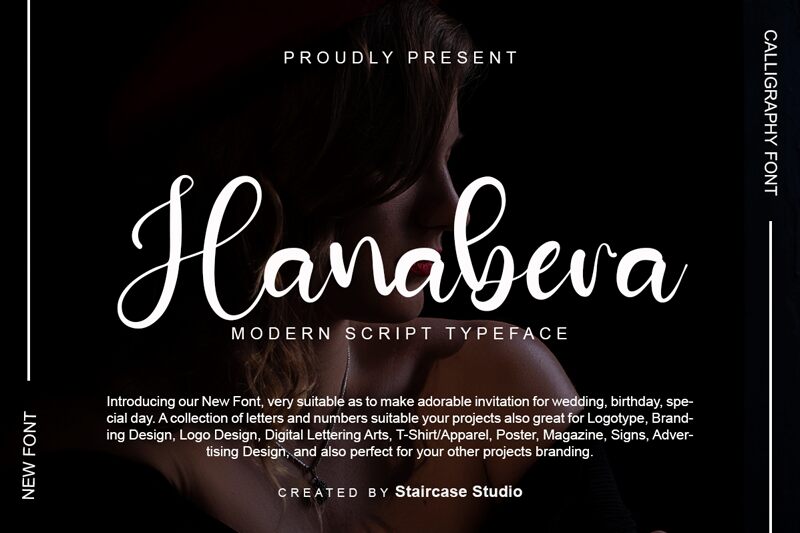
Hanabera
Meet Hanabera, the modern script font designed by Staircase Studio. With its flowing and organic lines, Hanabera brings an elegant and sophisticated touch to any project. This versatile typeface is perfect for wedding invitations, branding materials, social media graphics, packaging design, and more. Its playful yet refined style is sure to capture attention and add a touch of class to any project. Hanabera's unique letterforms make it easy to read while still standing out from the crowd. Try it today and elevate your designs with this stunning script font!